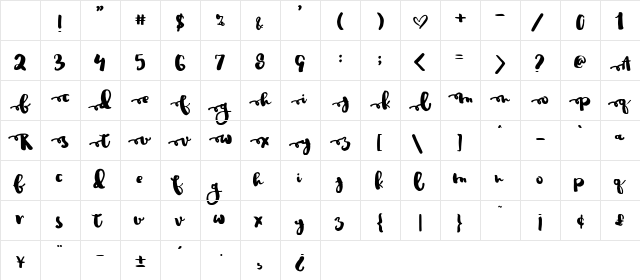
Complete JustinRoad Regular glyph index. Displaying only characters natively supported by JustinRoad Regular font.
JustinRoad is a composed and adaptable typeface that performs quietly and consistently across a wide range of design contexts.